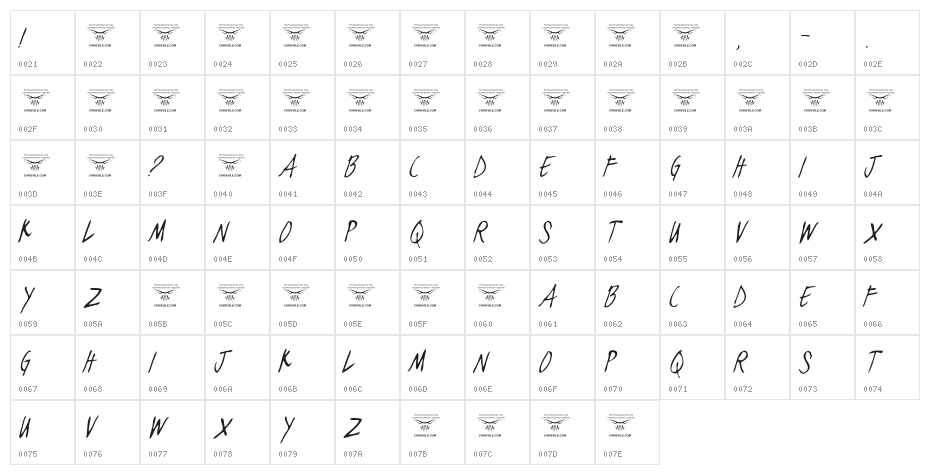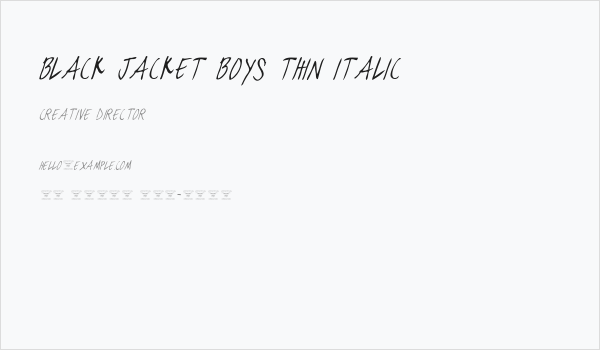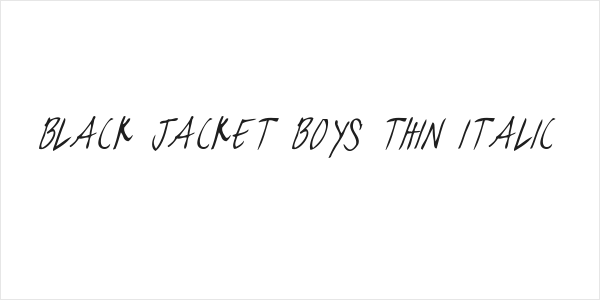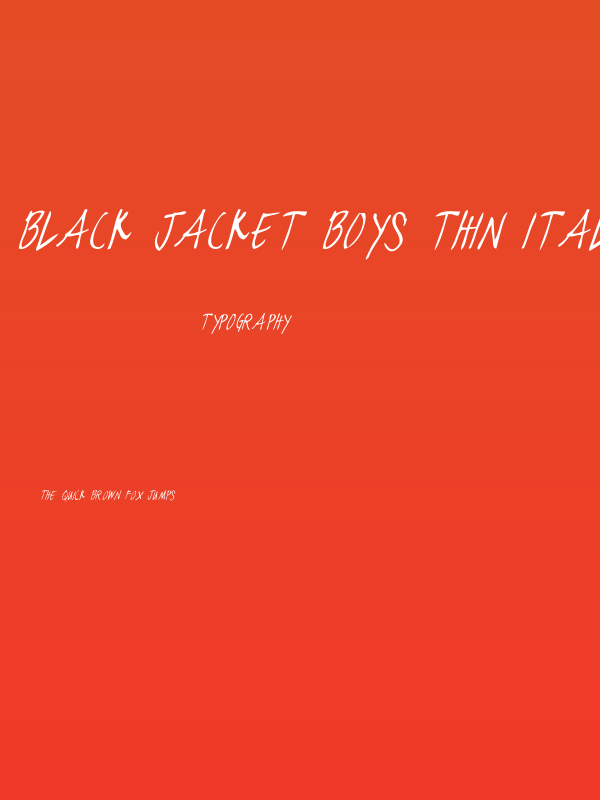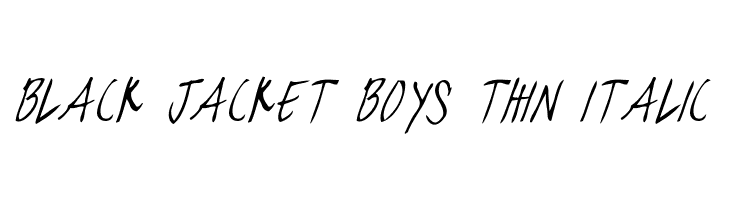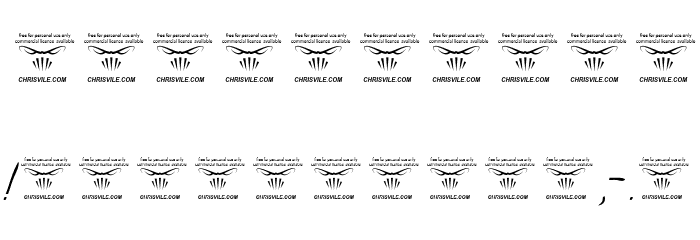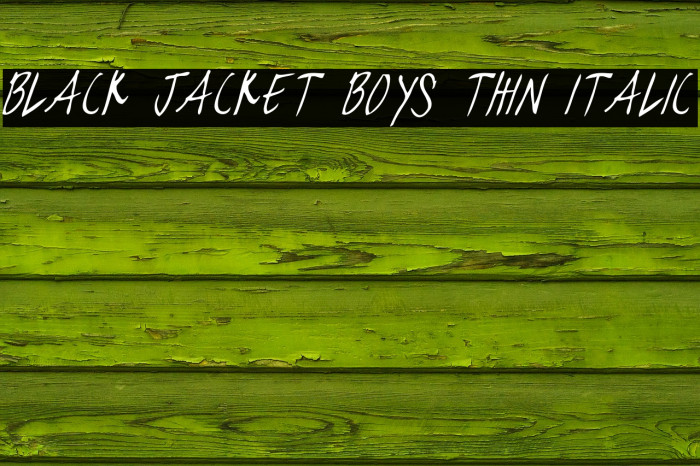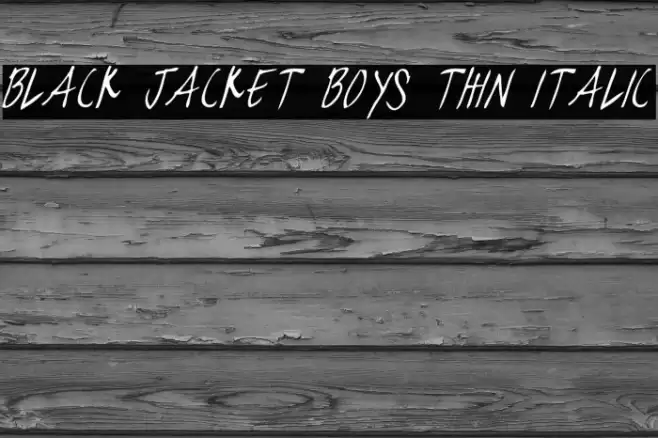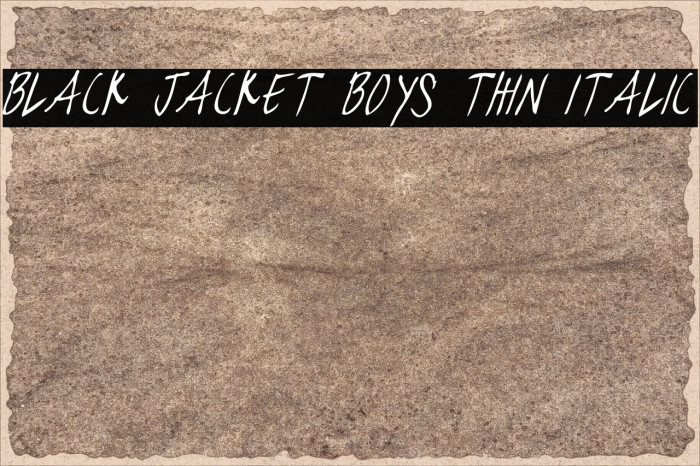
black jacket boys Thin Italic Font
black jacket boys Thin Italic Description
This font features a dynamic and expressive style, characterized by its thin, italicized strokes that convey a sense of movement and fluidity. The letters are crafted with a handwritten aesthetic, giving them a personal and artistic touch. The uppercase and lowercase letters maintain a consistent slant, enhancing the overall cohesive look. The strokes vary in thickness, adding a subtle contrast that emphasizes the handwritten quality. This font is ideal for projects that require a personal, artistic, or informal touch, such as invitations, greeting cards, or creative branding.
| Overall Style | Artistic and expressive |
| Use Case | Creative projects, personal branding, informal text |
| Proposed Projects | Ideal for invitations, greeting cards, artistic branding, and creative projects. |